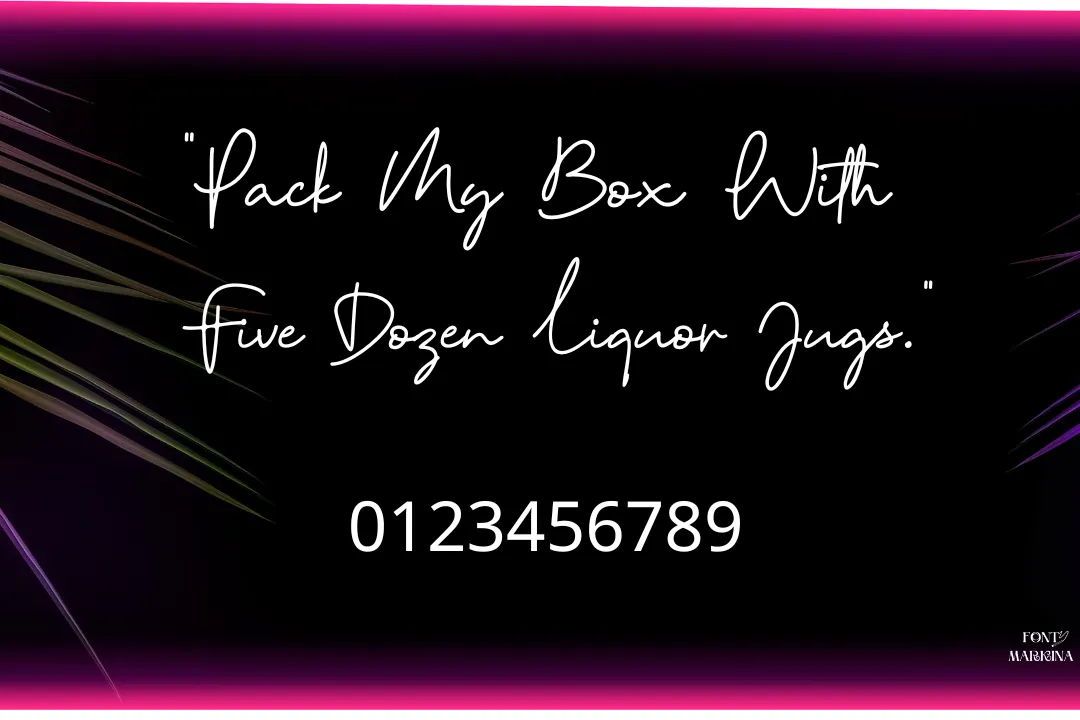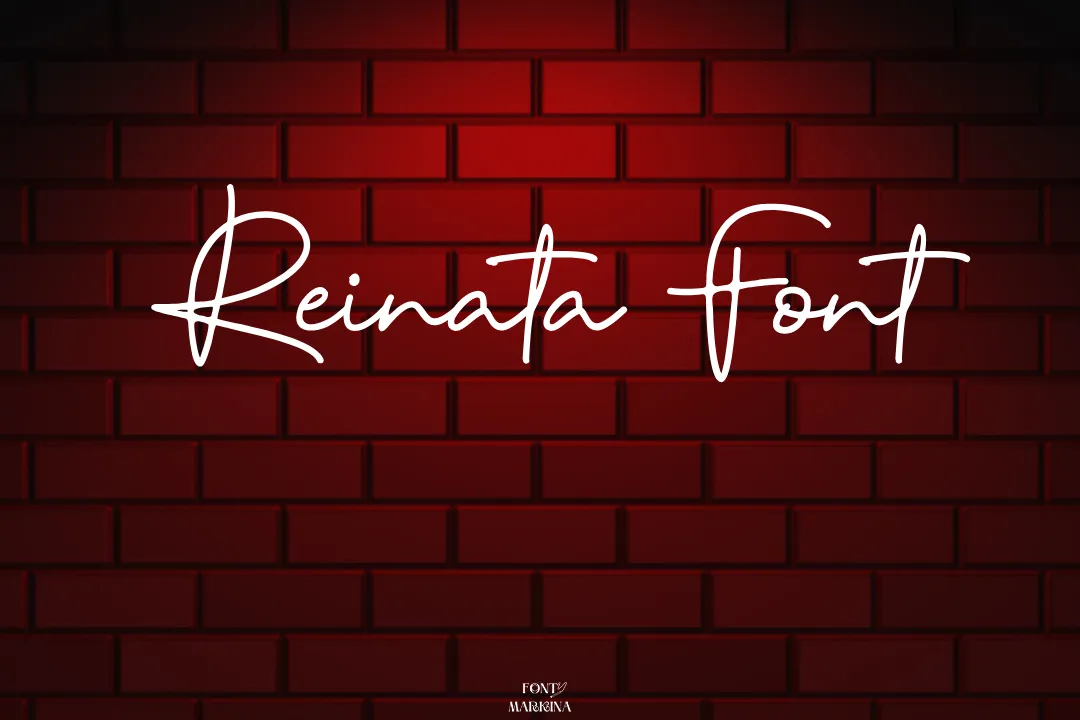
A well-known graphic designer by the name of Nug’s Project produced the Reinata Font, which falls into the classification of the script, and handwritten texture families. This font’s excellent texture look and impression lend your creations a handmade sense.
Uses of Reinata Font
As a result of its script texture family, the Reinata typeface can be used with both CSS and Adobe Photoshop. It contains a variety of character kinds, including punctuation, symbols, small letters, and capital letters.
It supports many different worldwide languages, which is why it quickly became well-known. This typeface can also be used to make social media posts, banners, commercials, printings, invitation cards, office cards, and many other things. It may be utilized with a variety of programs, including Adobe Photoshop, Coral Draw, Illustrator, and Canva.
What font type is Reinata Font?
A well-known graphic designer by the name of Nug’s Project produced the Reinata Font, which falls into the classification of the script, and handwritten texture families.
What does Reinata typeface look like?
This wonderful typeface looks like the handwritten texture family and has amazing pairing quality, you can easily compare this font with Antro Vectra Font.
Is Reinata a normal font?
Yes! The Reinata texture is a normal and good-looking texture, that is suitable for making email templates, social media posts, banners, logo designs, and much more.